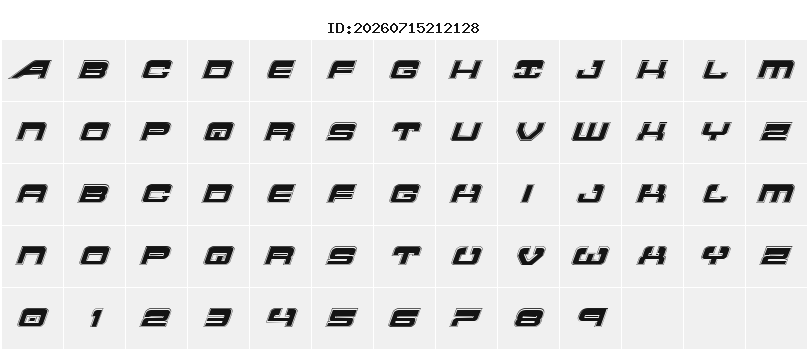
About Atlantia Academy Italic.ttf
Atlantia Academy Italic.ttf is a modern, elegant sans-serif font designed for ultimate readability and visual harmony. Perfect for branding, headlines, web design, and print materials.